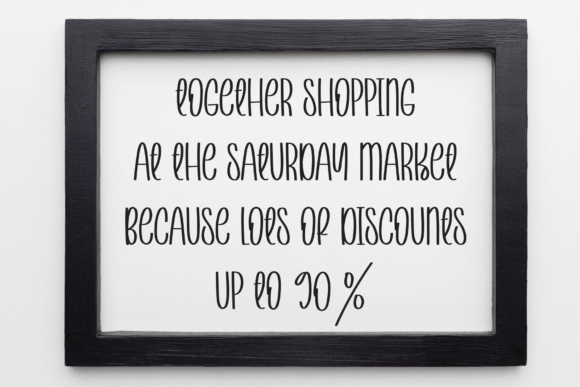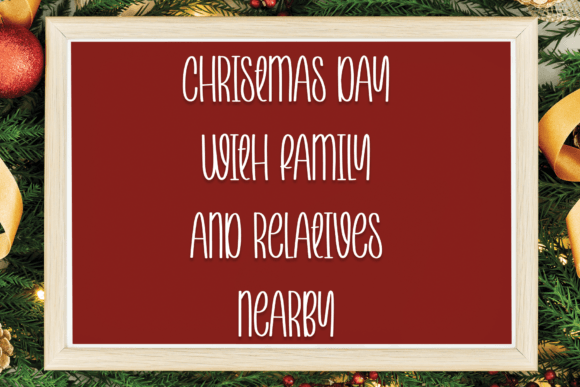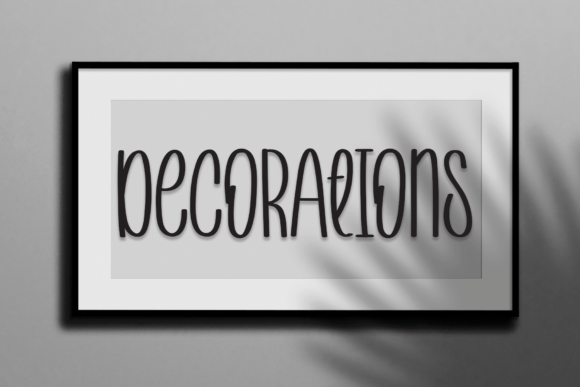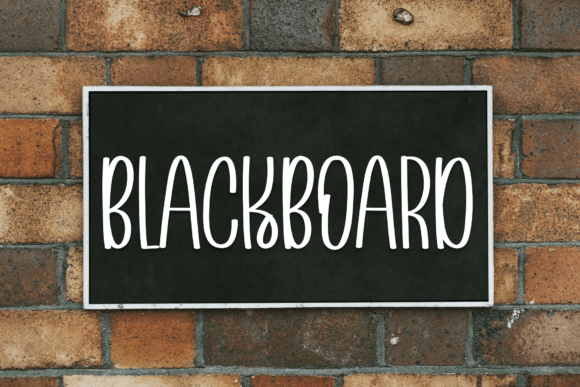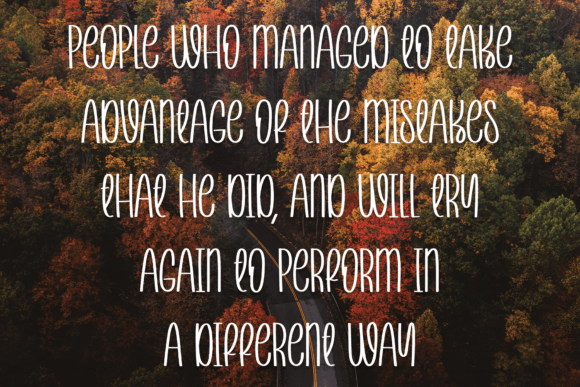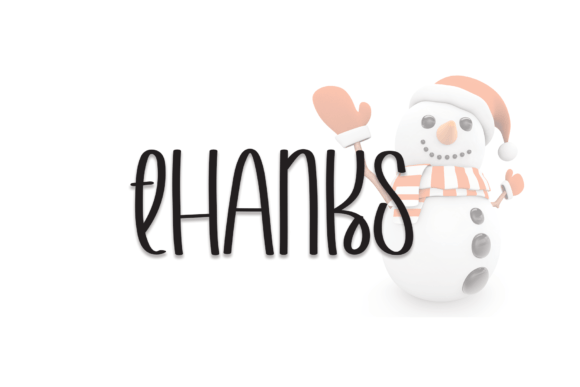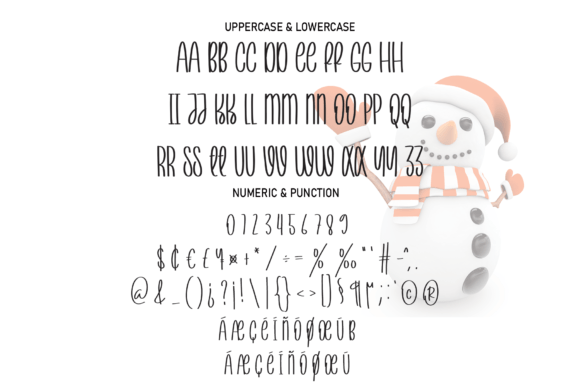
With Snowman Font
Add Stylish Handwriting with With Snowman Font
The With Snowman font features a fresh and elegant handwritten style, perfect for a wide range of creative projects. Its latest style letters add personality and charm, making it an excellent choice for wall displays, wedding invitations, social media post logos, advertisements, product packaging, product designs, labels, photography, watermarks, stationery, and any project that benefits from a handwritten touch.
Perfect for Invitations, Branding, and Product Design
The With Snowman font excels in many design contexts including wedding invitations, social media branding, advertising campaigns, product packaging, labeling, photography overlays, and stationery design. Its smooth and stylish strokes give your work a polished and personalized feel.
A Handwritten Script with Modern Flair
Each character in the With Snowman font is carefully designed with flowing lines and elegant curves that combine readability with artistic style. This font balances decorative beauty with clarity, making it ideal for headlines, logos, quotes, and decorative text elements.
Despite its artistic and stylish design, the With Snowman font maintains excellent readability at various sizes. Whether used for bold titles or subtle details, it combines modern elegance with clarity, making it a versatile choice for many projects.
Elevate Your Designs with With Snowman’s Handwritten Charm